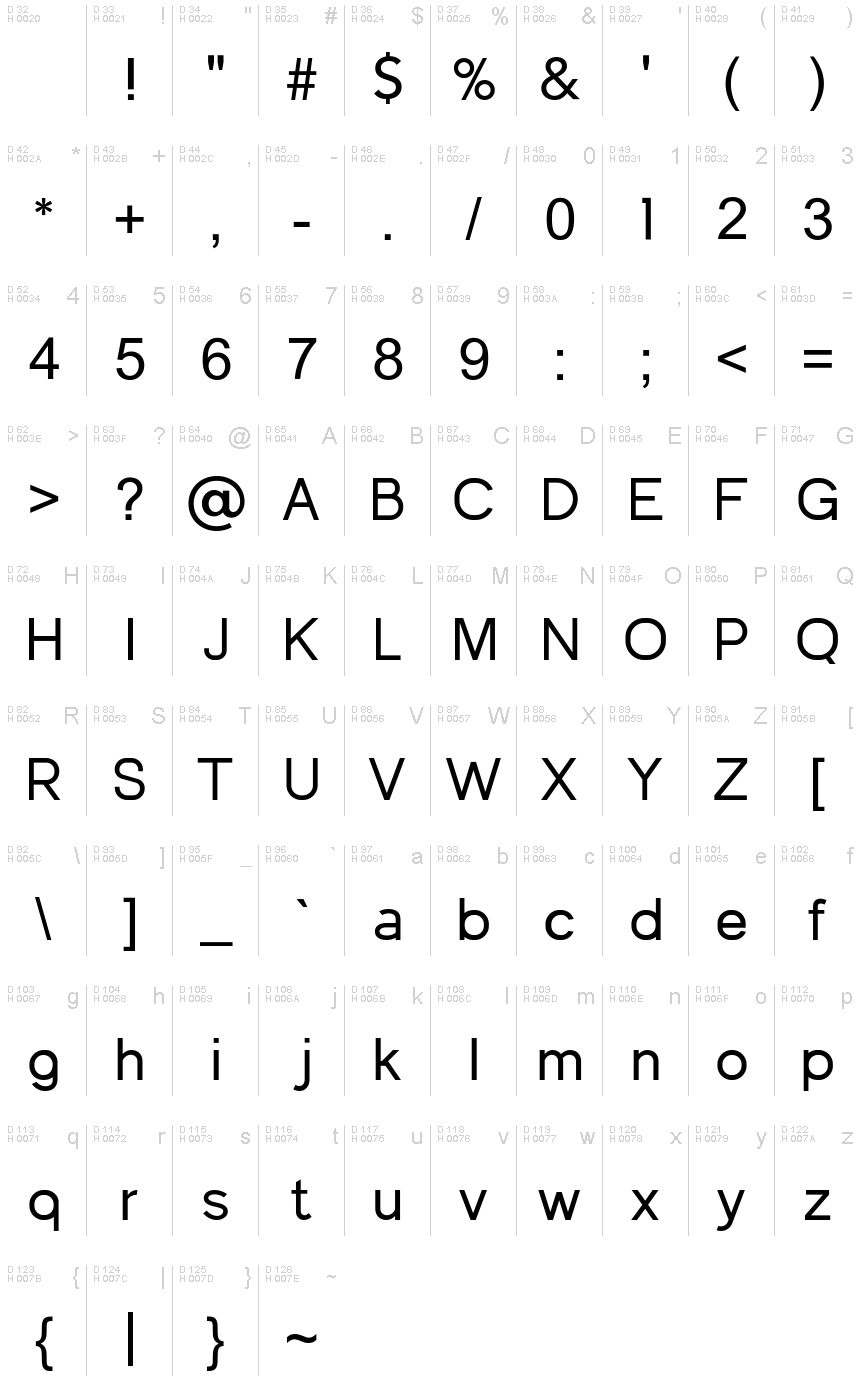
Quicklime Regular
Quicklime font by UI Creative is a striking sans serif typeface that stands out with its clean and crisp lines. This light font exudes a modern and sophisticated vibe, making it perfect for contemporary design projects. Its elegant structure captures attention without overwhelming the viewer, providing readability while maintaining a distinct style.
Perfect for branding, advertising, or web design, Quicklime excels in minimalist designs where clarity is key. Its versatility allows designers to apply it across various projects, from logos to editorial content. Available as a free font download, Quicklime offers accessibility alongside style—ideal for those looking to enhance their creative projects with a touch of polished simplicity.
Explore the potential of Quicklime font for your next design venture and experience its seamless blend of functionality and aesthetic appeal.